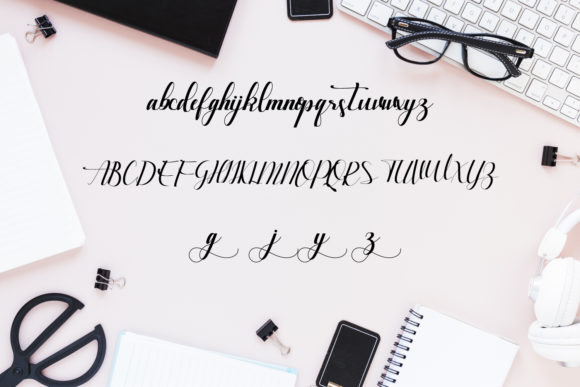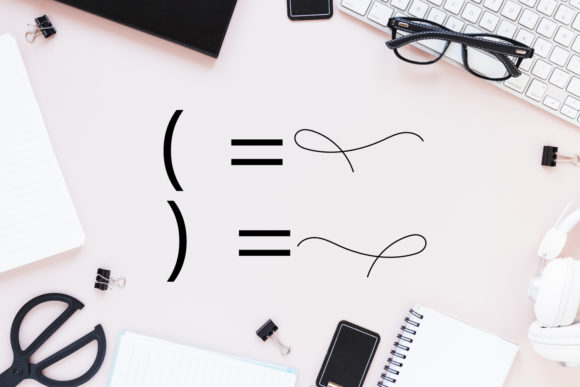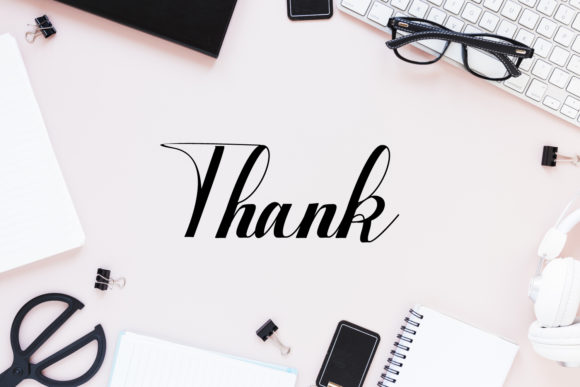
Introduction to Guyta Font
As a designer, you’ve probably experienced that moment when you’re working on a project and everything falls into place. The colors, the typography, the composition – it all comes together to create something truly special. And that’s exactly what happens when you use the Guyta Font in your creative project. This exquisite handwritten font is designed to elevate your work to new heights, adding a touch of elegance and sophistication that’s hard to resist.
With its classy calligraphic influences and contemporary feel, the Guyta Font is the perfect design resource for any project. Whether you’re working on a branding campaign, a wedding invitation, or a social media graphic, this high-quality font is sure to impress. And the best part? It’s available for a free download, making it an accessible and valuable addition to your design arsenal.
So why settle for an ordinary font when you can have an extraordinary one? Discover the beauty of the Guyta Font and take your creative projects to new levels of excellence.
Key Features of Guyta Font
- Includes a comprehensive character set, covering a wide range of languages and special characters.
- Designed with a modern and sleek aesthetic, perfect for use in logos, branding, and other visual identity projects.
Honest Review: Guyta Font
As a designer, I’m always on the lookout for high-quality design resources to elevate my creative projects. The Guyta Font has caught my attention, and I’m here to share my honest review.
- High-quality font design with a unique, modern aesthetic.
- Works well in various typography contexts, from body text to headlines.
- Limited font styles and weights, which might not be suitable for complex design projects.
- May not be the best choice for projects requiring a bold, condensed font.
In terms of overall impression, the Guyta Font is a solid choice for designers looking for a high-quality, free font to add to their design arsenal. While it may not be perfect for every project, it’s definitely a great resource to have in your toolkit.
The Guyta Font is ideal for use in a variety of creative projects, including:
- Branding